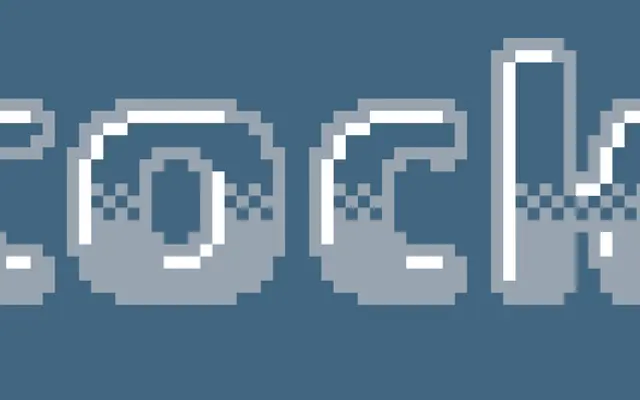
Puffin Arcade
Bold Monday · Pieter van Rosmalen · 2012
A family of 12 bitmapped display styles derived from Puffin Display Soft, designed for layering and multi-colour animation.
Each of the 12 styles carries a distinct theme, from Dither and Liquid to Warp, Yoko and Tate, all built on the same heavy bitmap skeleton so that most styles stack cleanly on top of one another. The layering system was conceived for flashing, blinking and running animations, making the family particularly suited to kinetic screen work and title sequences. It sits comfortably alongside the calmer Puffin and Puffin Display families when a project calls for both registers.
A family of 12 bitmapped styles derived from Puffin Display Soft's heaviest weight, each with a distinct pixel-art or arcade-themed design treatment. Classified as display due to its decorative, layerable bitmap construction intended for expressive and animated use.